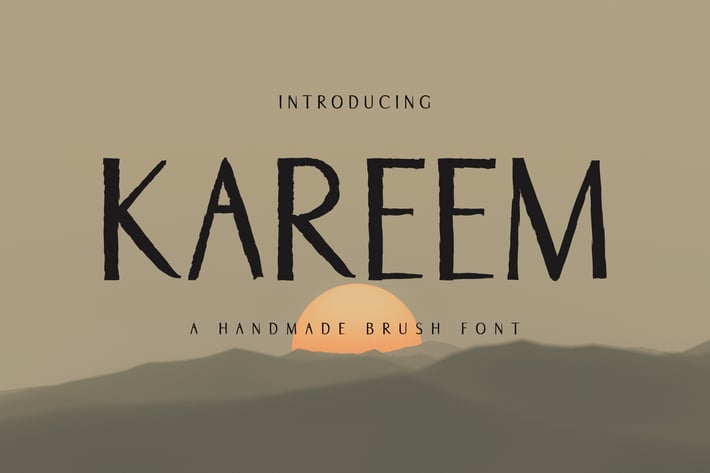
Kareem Brush Font
Kareem is a modern, charming and incredible font which has the potential to elevate any of your upcoming design project that you wish to create! It contains uppercase, lowercase, number, punctuation and symbols. Kareem font will be perfect for packaging, presentations, logo, headlines, lettering, posters, branding, quotes, titles, magazines headings, web layouts, advertising, invitations, packaging design, books, and nearly any creative design.
Kareem Font Features:
- Uppercase Letters
- Lowercase Letters
- Support Multilingual ( Latin Supplement + Latin Extended A)